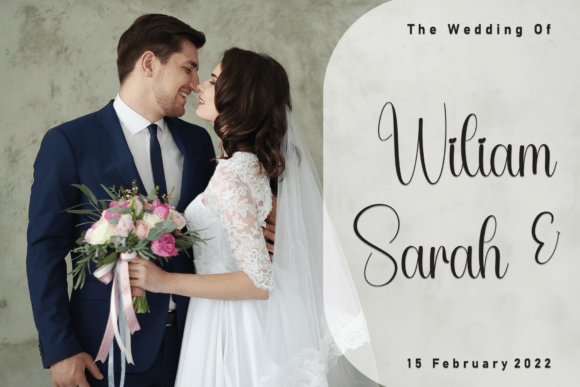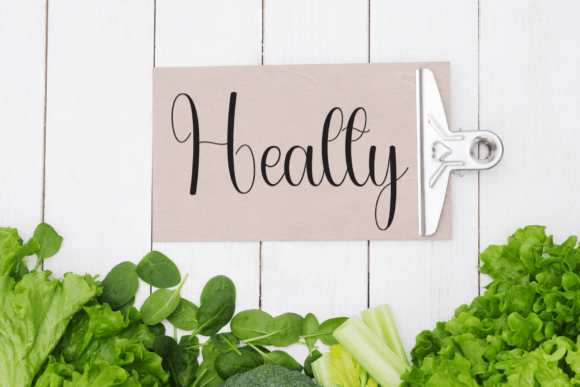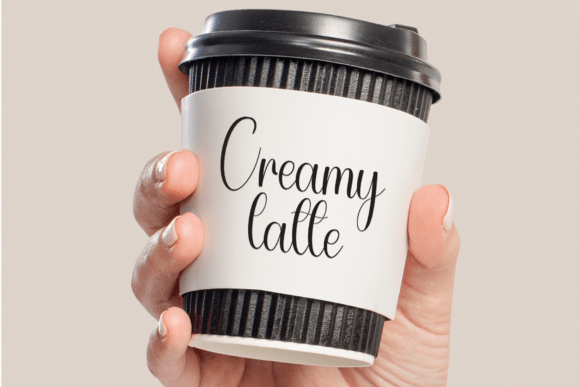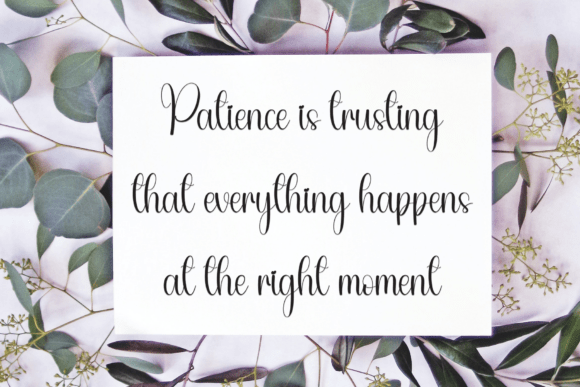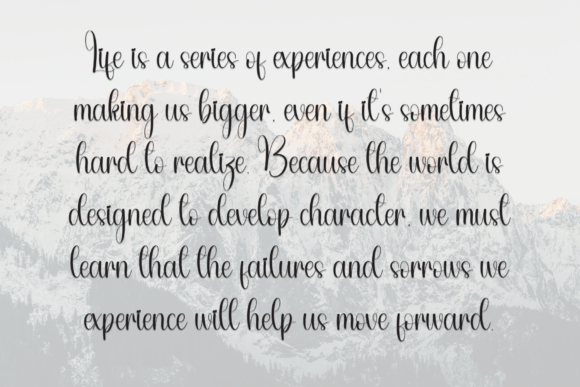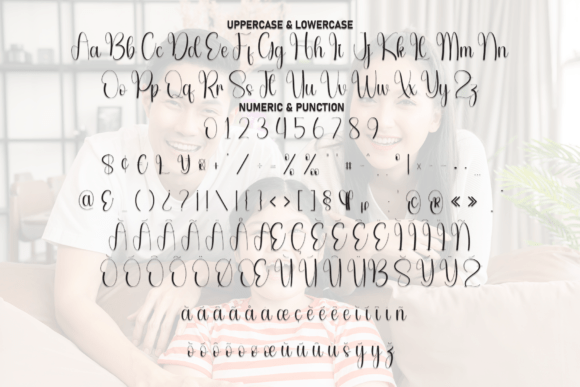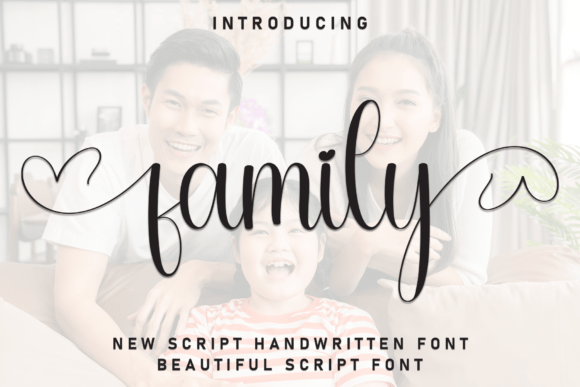
Introducing Family Font: The Perfect Typeface for Celebrating Life’s Precious Connections
In the world of typography, few fonts capture the essence of love and connection as beautifully as Family Font. This stunning script font is designed to convey a sense of warmth, elegance, and sophistication, making it the perfect choice for designers and crafters looking to add a personal touch to their projects. With its flowing letterforms, rhythmic swashes, and delicate heart-shaped flourishes, Family Font is the ultimate typeface for celebrating life’s most precious connections.
A Font that Speaks from the Heart
Family Font is more than just a typeface – it’s a way to express your emotions and connect with your audience on a deeper level. Its elegant, handwritten weight and personal touch make it perfect for projects that require a sense of warmth and authenticity. Whether you’re a designer looking to create a unique brand identity for an independent photography business or a crafter seeking to add a special touch to wedding invitations or home decor, Family Font is the perfect choice.
Elegant and Refined
One of the standout features of Family Font is its elegant, flowing letterforms. Characterized by rhythmic, sweeping swashes and delicate heart-shaped flourishes, this font is sure to add a touch of sophistication to any project. The heart-shaped flourishes that bookend your words with love are a particularly nice touch, adding a sense of whimsy and playfulness to your designs. Whether you’re creating a wedding invitation, a social media header, or a sentimental piece of home decor, Family Font is sure to make your project stand out.
So, what can you use Family Font for? The possibilities are endless! Here are a few ideas to get you started:
• Independent Photography Branding: Use Family Font to create a unique and memorable brand identity for your photography business. The font’s elegant, handwritten weight and personal touch make it perfect for showcasing your work and connecting with potential clients.
• Wedding Invitations: Add a touch of romance and sophistication to your wedding invitations with Family Font. The font’s flowing letterforms and delicate heart-shaped flourishes make it perfect for conveying your love and excitement on your special day.
• Sentimental Home Decor: Use Family Font to create beautiful and meaningful pieces of home decor, such as wall art, signs, or quotes. The font’s warm and welcoming feel makes it perfect for adding a personal touch to your home.
• Social Media Headers: Make a statement on social media with Family Font. The font’s bold, sweeping swashes and delicate heart-shaped flourishes make it perfect for creating eye-catching headers that showcase your personality and style.
Why Choose Family Font?
So, why should you choose Family Font for your next project? Here are just a few reasons:
• Unique and Memorable: Family Font is a unique and memorable typeface that will help your project stand out from the crowd.
• Elegant and Refined: The font’s elegant, flowing letterforms and delicate heart-shaped flourishes make it perfect for projects that require a sense of sophistication and refinement.
• Personal Touch: Family Font has a personal touch that makes it perfect for projects that require a sense of warmth and authenticity.
• Versatile: The font is versatile and can be used for a wide range of projects, from independent photography branding to wedding invitations and home decor.
In conclusion, Family Font is a beautiful script font that captures the essence of love and connection. With its elegant, flowing letterforms, rhythmic swashes, and delicate heart-shaped flourishes, this font is perfect for designers and crafters looking to add a personal touch to their projects. Whether you’re creating a unique brand identity for an independent photography business, a wedding invitation, or a sentimental piece of home decor, Family Font is the perfect choice. So why wait? Download Family Font today and start celebrating life’s most precious connections in style!